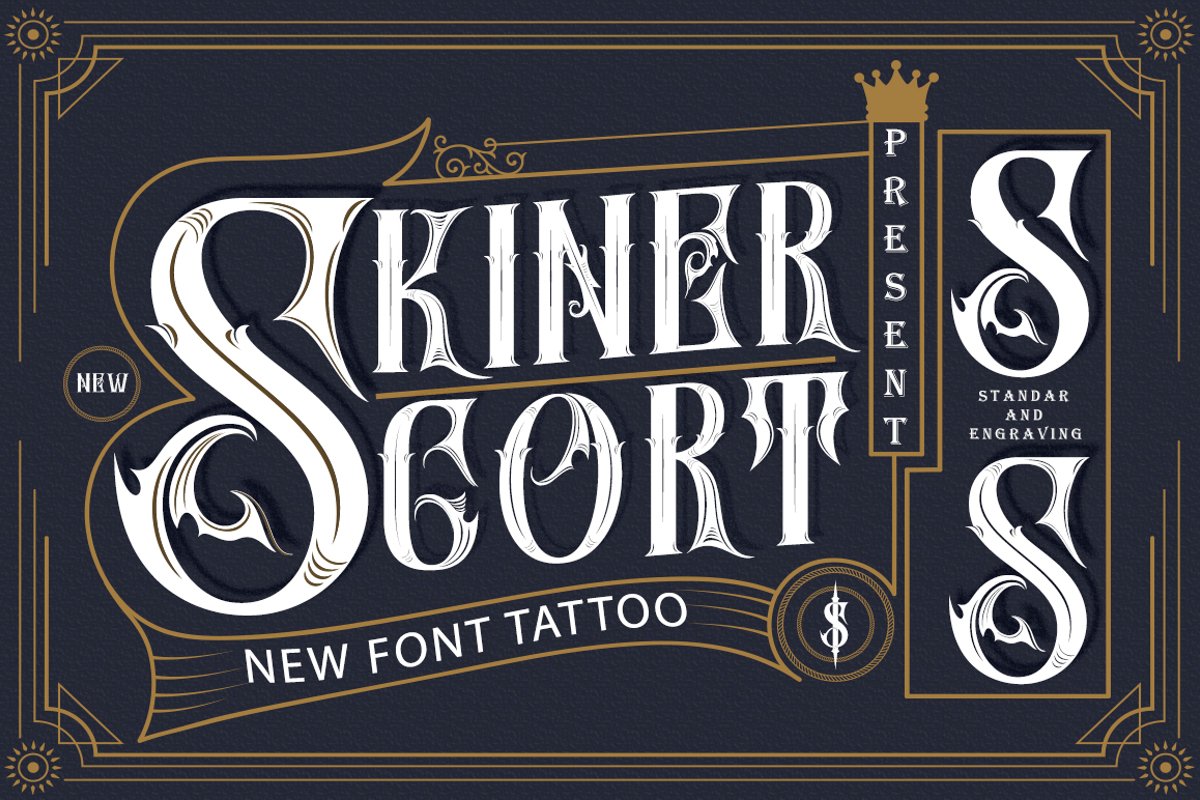
SKINER SCORT
SkinerScort is a carefully crafted magic blackletter font with an elegant touch. This will elevate various design projects to the highest level, and have fun trying out these fonts. thank you